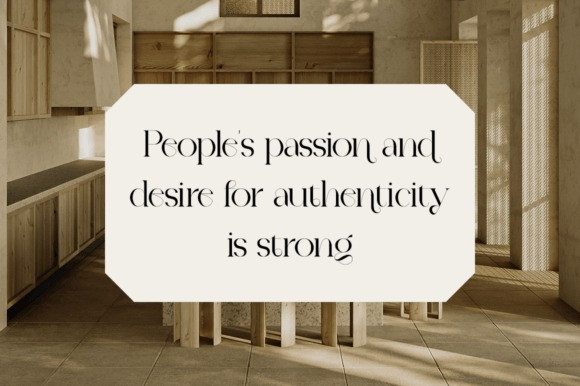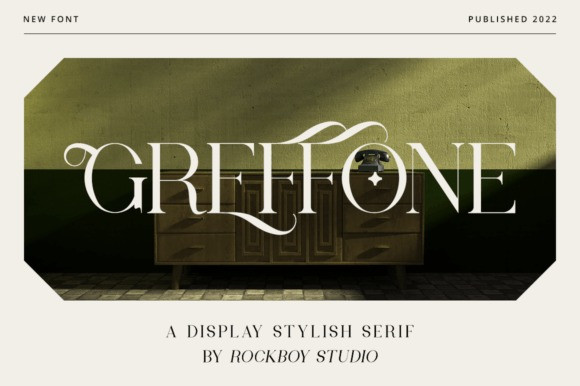
Greffone Font
Greffone Font is a stylish and elegant serif font. Fall in love with its incredibly distinct and timeless style and use it to create spectacular designs! It can easily be matched to an incredibly large set of projects, so add it to your creative ideas and notice how it makes them stand out!